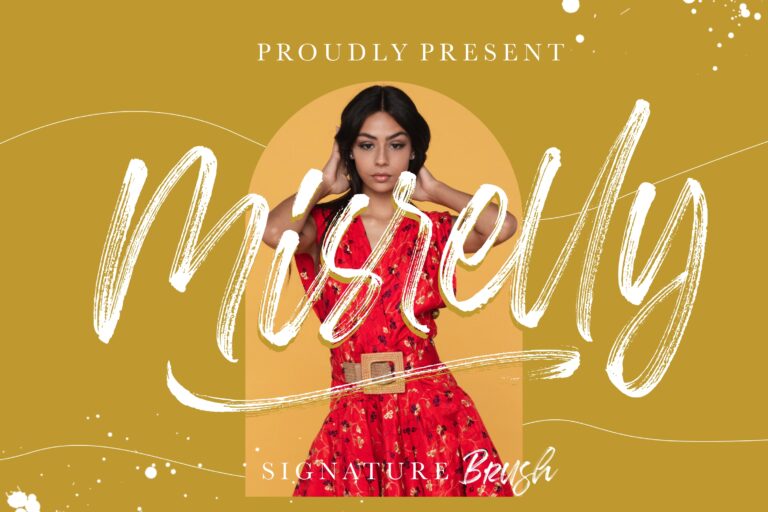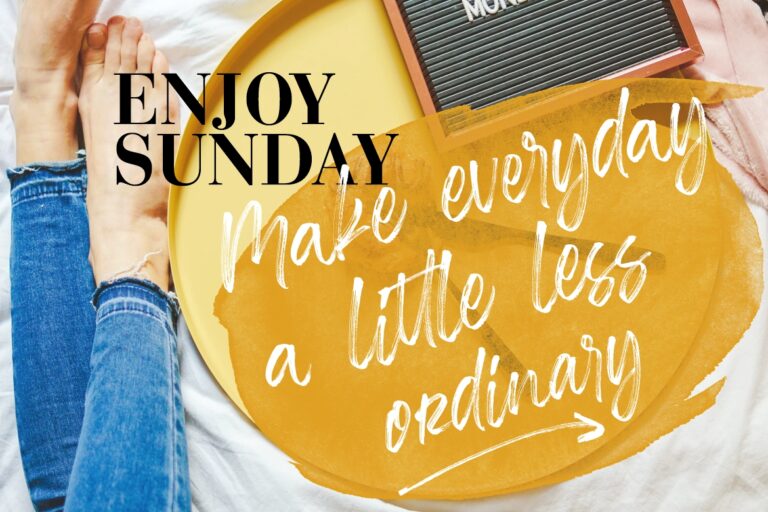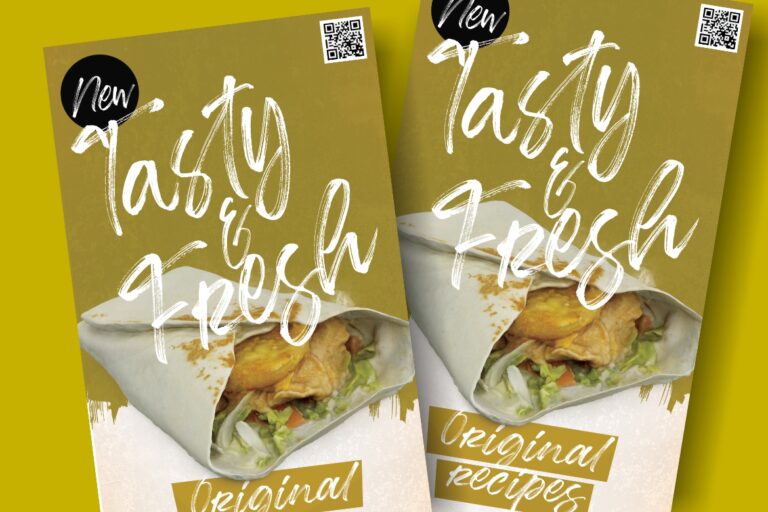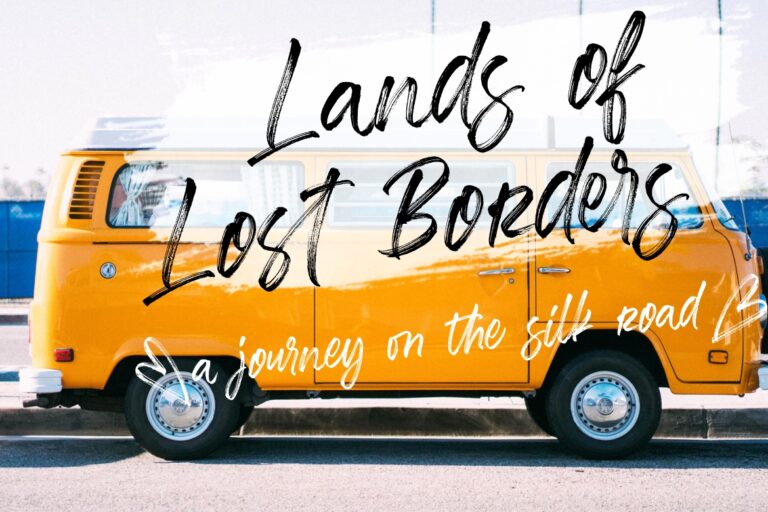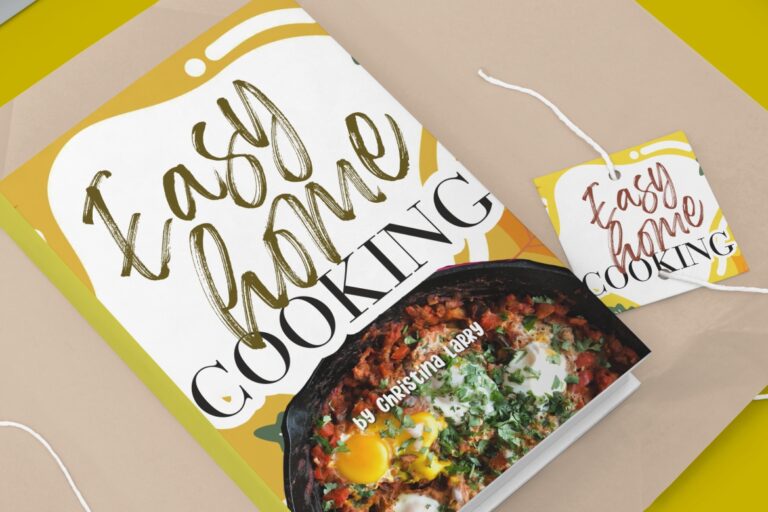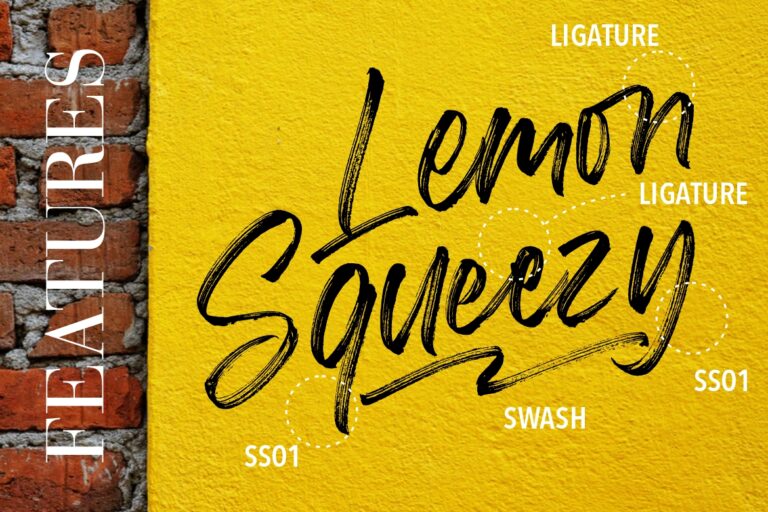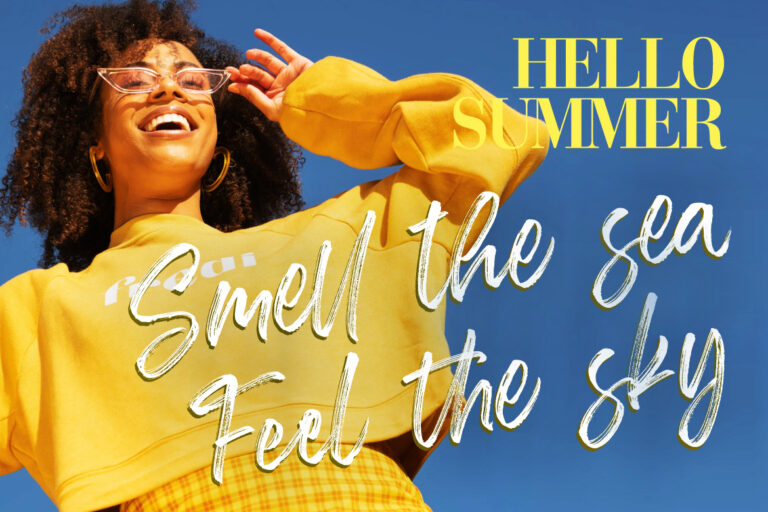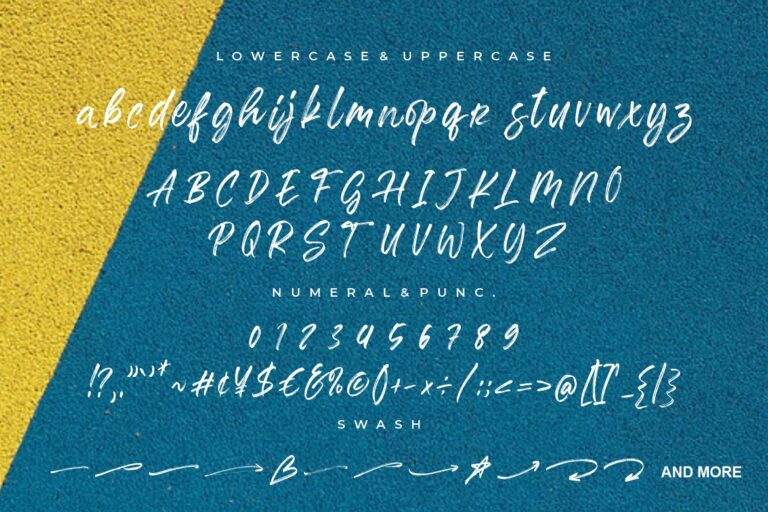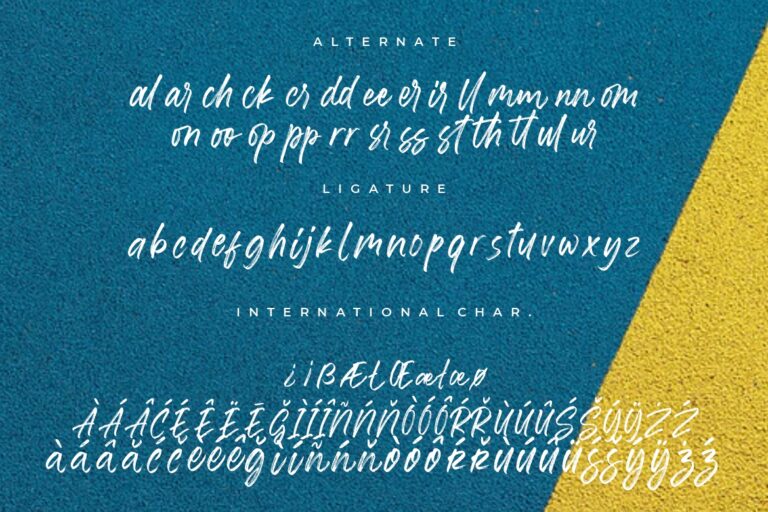
Misrelly Signature Brush
Misrelly is signature brush font that looks modern, sophisticated and elegant with many great feature.
Misrelly is perfect for branding projects, logo, wedding designs, social media posts, advertisements, product packaging, product designs, label, photography, watermark, invitation, stationery and any projects that need handwriting taste.
• Ton of glyphs
• Ligature, Swashes & Alternate